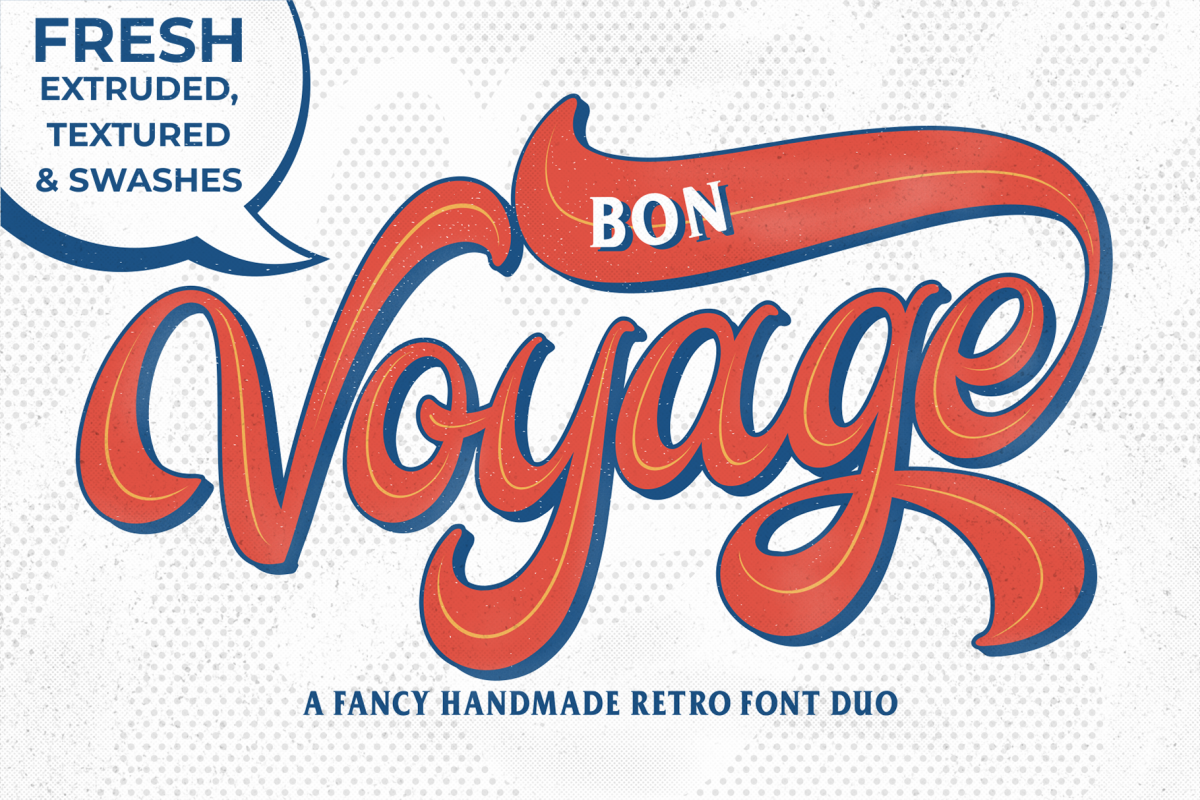
Bon Voyage Script
Hey 'Bon Voyage!' inspired by popular retro handlettering in the 70's added with a touch of pop style, this font looks unique and elegant. This handmade font is made with several precision layers with a total of 526 glyphs.Bon Voyage Script is very easy to use without taking your time. And makes it easy for you to make lots of creations easily.What you get:
Features: Hundreds of Alternates, Stylistic Sets, Ligatures, Swashes & Multingual Characters